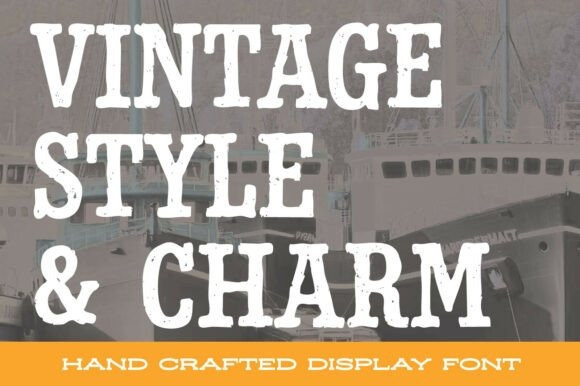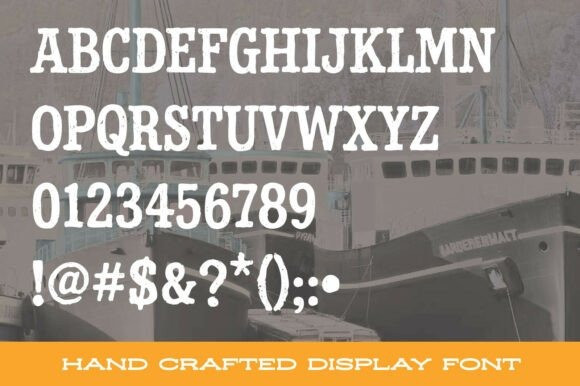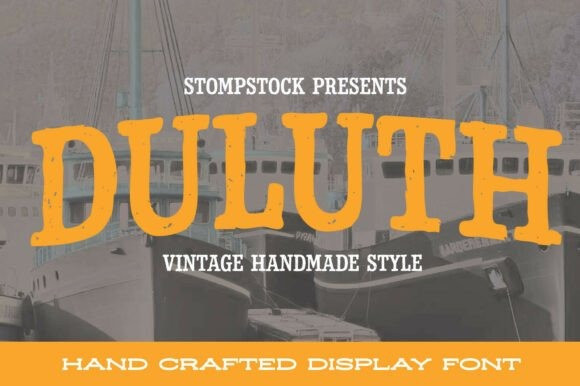
Duluth Font
Duluth Font is a rugged, hand-crafted display font inspired by the harbor city on the shores of Lake Superior. Just like Duluth itself—a place where weathered ships meet rocky cliffs and old industry blends with creative grit—this typeface carries a bold, resilient character. Its rough edges and vintage charm feel both hardworking and artistic, making it ideal for designs that call for authenticity and strength.
Whether used for outdoor gear branding, rustic signage, heritage logos, or anything that needs a touch of Minnesota grit, Duluth captures the essence of a city shaped by water, wind, and steel. It’s bold yet approachable, weathered yet timeless—built to stand strong like the harbor lights against the northern sky.